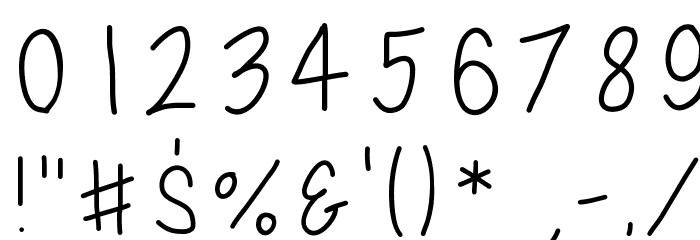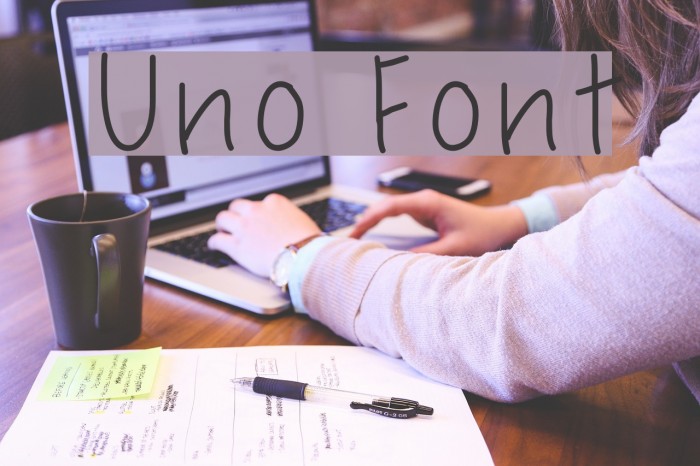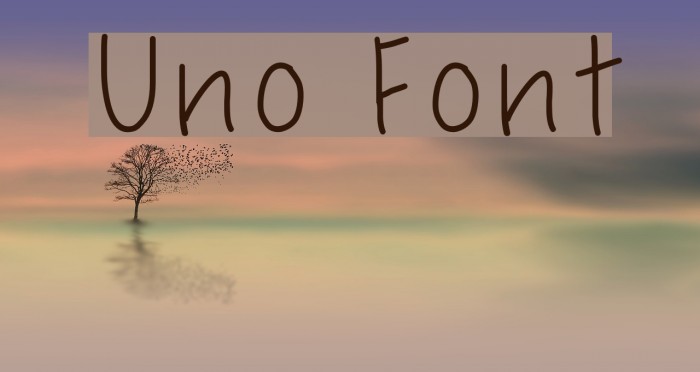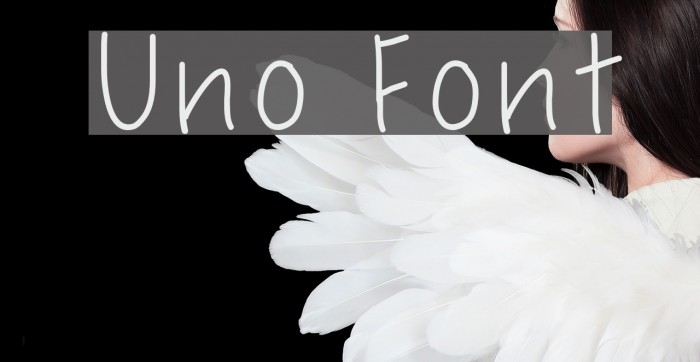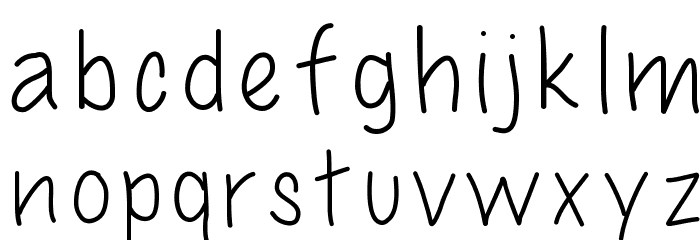
Uno Font
Uno Description
This font features a playful and casual handwritten style, characterized by its irregular strokes and slightly uneven baseline. The letters are tall and narrow, giving a sense of height and lightness. The uppercase and lowercase letters maintain a consistent style, with rounded edges and a friendly appearance. Numbers and special characters follow the same informal aesthetic, making the font versatile for various creative projects. Its simplicity and charm make it suitable for designs that require a personal touch.
A playful, handwritten font with a casual and friendly style from Handwritten fonts.
- Proposed Projects: Ideal for greeting cards, children's books, personal blogs, and casual branding projects.
- Overall Style: Casual
- Use Case: Headlines, Informal text, Creative projects